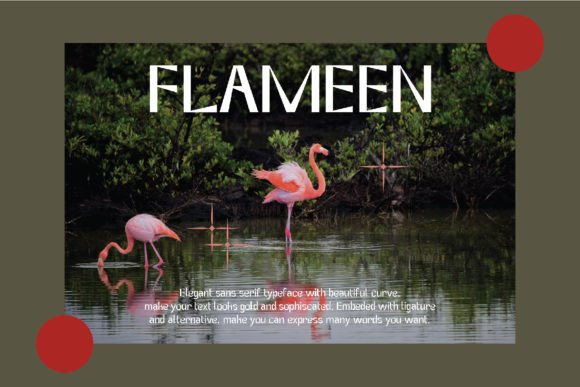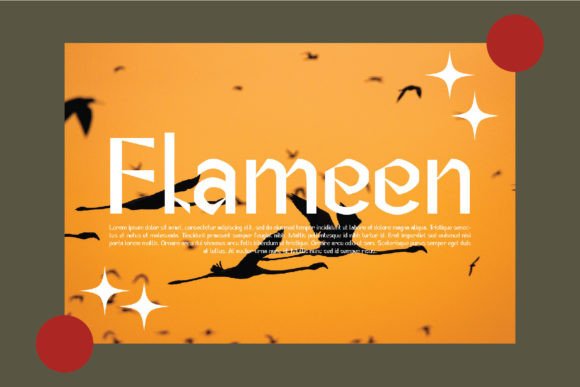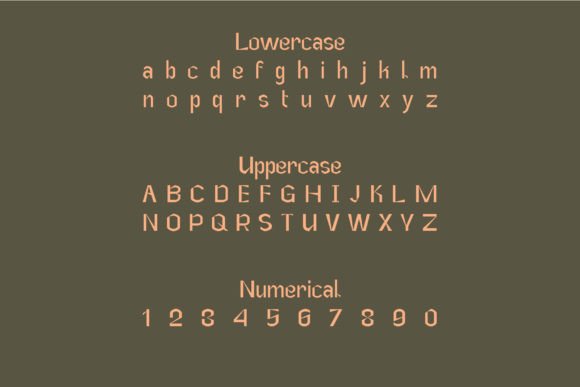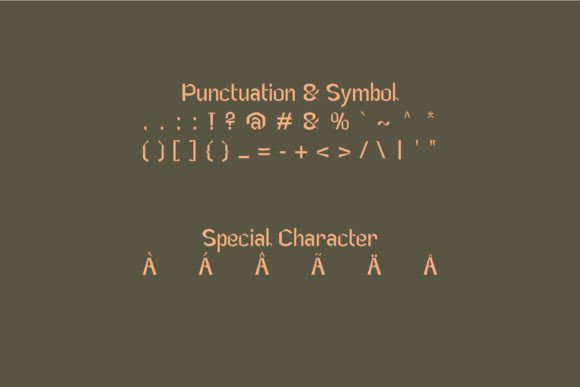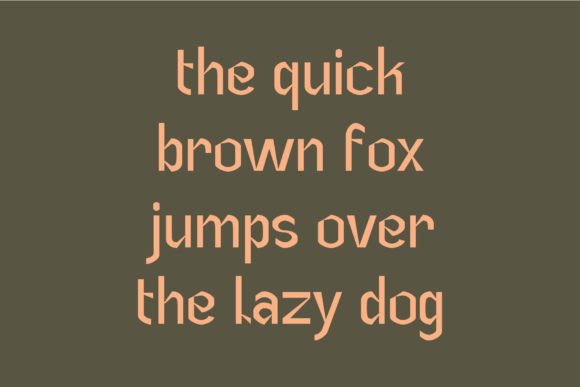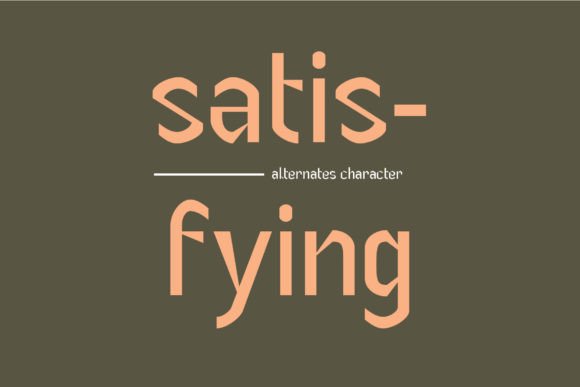
Introduction to Flameen Font
Have you ever stared at a blank canvas, waiting for the perfect font to bring your creative project to life? The search for the perfect typography can be daunting, but what if I told you that the answer lies in the sleek and modern design of the Flameen Font? This stylish display font is the perfect addition to any designer’s toolkit, adding a touch of sophistication to your headers, titles, and creative displays.
Whether you’re designing a website, poster, or logo, the Flameen Font is the perfect design resource to elevate your visuals and make your content stand out. With its high-quality design and transparent background, this font is a must-have for any designer looking to upgrade their projects with a modern flair. And the best part? You can download the Flameen Font for free, making it an accessible and valuable addition to your design library.
Key Features of Flameen Font
- Unique and Creative Design: Flameen Font offers a distinctive and creative design that can be used for various projects, from branding to digital art.
- Transparent Background: This font features a transparent background, allowing for seamless integration with images and other design elements.
- High Resolution: The font is designed at 300 DPI, ensuring that it looks crisp and clear when used in high-resolution designs.
- Multi-Layered Design: The font’s multi-layered design allows for customization and flexibility, making it a valuable asset for designers working on complex projects.
- Perfect for Digital Art and Design: Flameen Font is ideal for use in digital art, graphic design, and other creative projects where a unique and high-quality font is required.
Honest Review: Flameen Font
One of the standout features of the Flameen Font is its high-quality design, with a sleek and modern aesthetic that’s perfect for a variety of applications. The transparent background is also a nice touch, allowing for seamless integration with other design elements.
Here are some things that work well with the Flameen Font:
- ✨ Highly customizable: The font is available in a range of weights and styles, making it easy to find the perfect fit for your project.
- ✨ Versatile: The Flameen Font is suitable for a wide range of creative projects, from branding and marketing materials to digital products and websites.
However, I did encounter a few limitations with the Flameen Font:
- ⚠️ Limited language support: The font may not support all languages, which could be a issue for designers working on international projects.
- ⚠️ Not suitable for very small text: The font may not be the best choice for very small text, as it can become difficult to read.
Overall, I’m impressed with the Flameen Font, and I think it’s a great addition to any designer’s toolkit. While it may have a few limitations, the font’s high quality and versatility make it a valuable resource for any creative project.
Tips for Getting the Most Out of Flameen Font
For the best results, use the Flameen Font in conjunction with other design resources, such as images and graphics. This will help to create a cohesive and visually appealing design. Additionally, experiment with different font sizes and colors to add depth and interest to your design.
The Flameen Font is perfect for a variety of creative projects, including logos, posters, and business cards. Its high-quality design and transparent background make it ideal for use on a transparent background, adding a touch of sophistication to any design.
Is the Flameen Font suitable for large-scale commercial projects?
Yes, the Flameen Font is designed to be highly scalable, making it suitable for use in large-scale commercial projects. Its high-quality design ensures that it will remain legible and visually appealing even when used at large font sizes or in high-resolution prints.